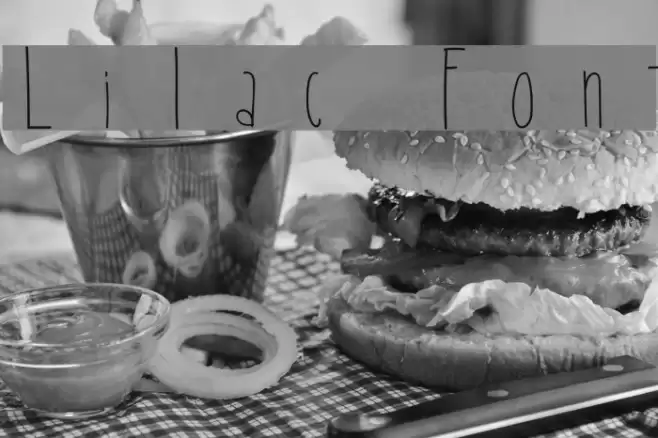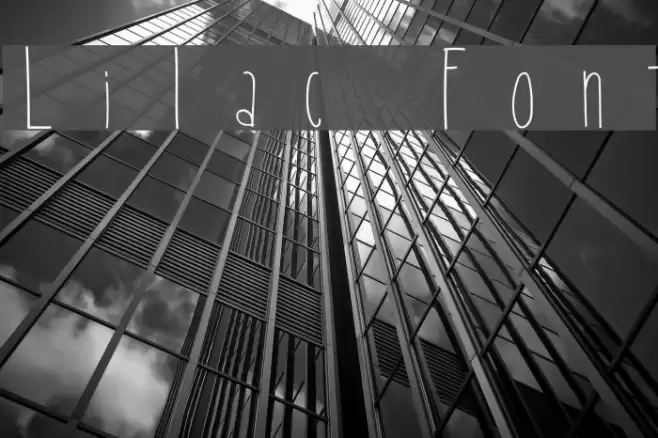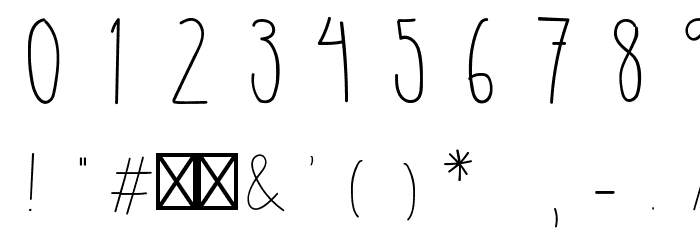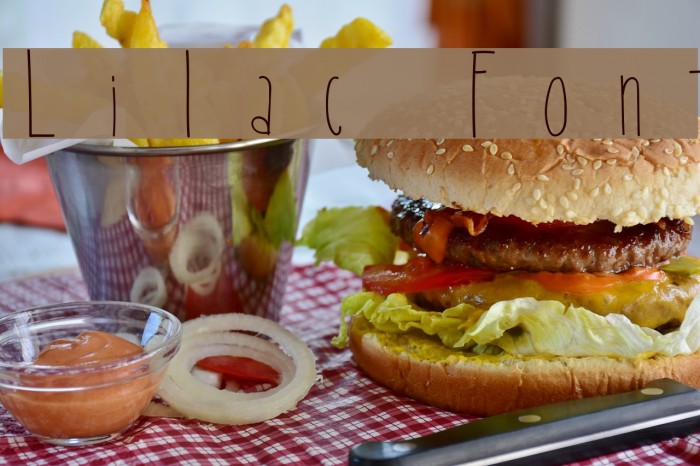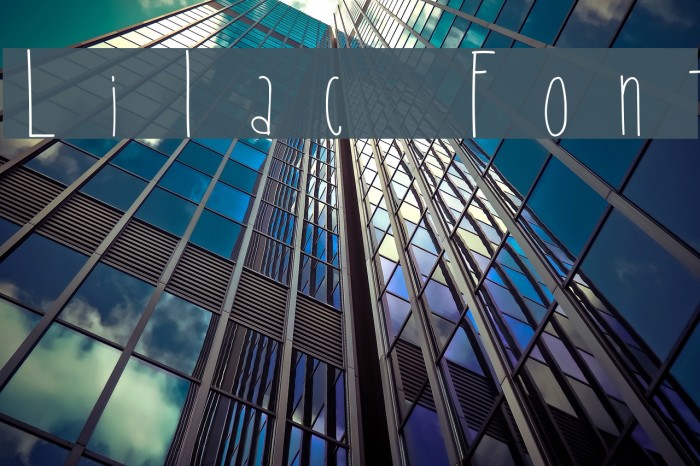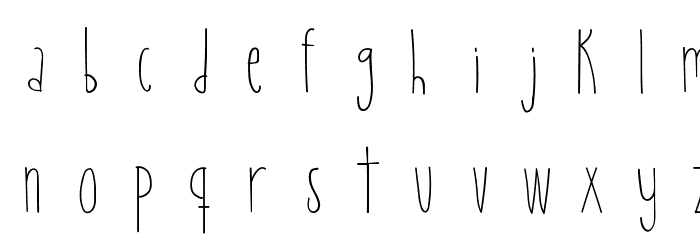
Lilac Font
Lilac Description
This font features a playful and whimsical handwritten style, characterized by its tall, narrow letters and irregular strokes. The uppercase letters are distinct with a slight tilt, adding a casual and informal feel. Lowercase letters maintain a consistent height, contributing to a cohesive look. Numbers are uniquely styled, with some digits like '2' and '5' having a more pronounced curve. Special characters are creatively designed, with symbols like '&' and '%' reflecting the font's quirky nature. Overall, this font exudes a lighthearted and approachable vibe, making it suitable for projects that require a personal touch.
A playful, handwritten font with tall, narrow letters and a whimsical style from Uncategorized fonts.
- Proposed Projects: Ideal for greeting cards, children's books, casual invitations, and playful branding.
- Overall Style: Whimsical
- Use Case: Headlines, Casual text, Invitations